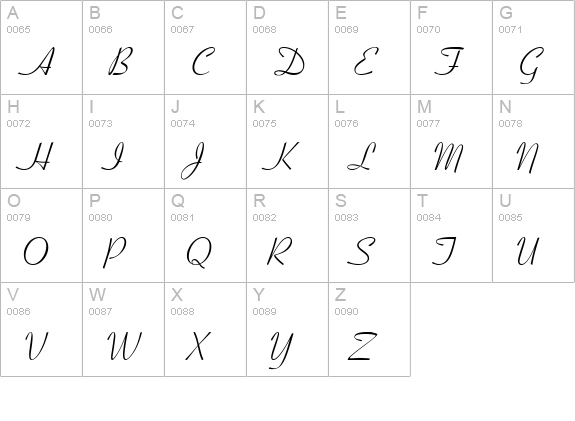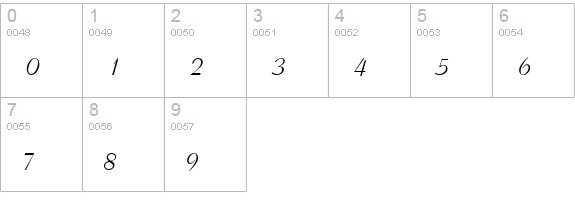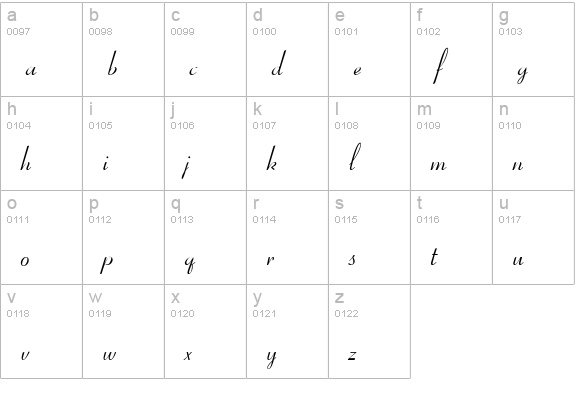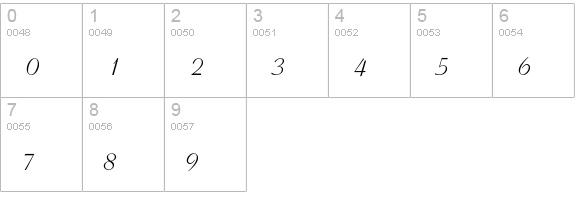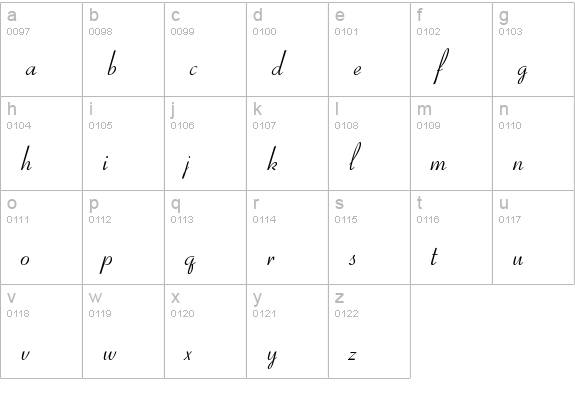
Bow Normal is the standard, neutral variant in the Bow typeface family \xE2\x80\x94 well suited to general body text, paragraphs, and standard typographic work.
Bow Normal font is a sleek and modern typeface that is perfect for a wide range of design projects. With its clean lines and elegant curves, this font exudes sophistication and style. Whether you're designing a logo, creating a flyer, or working on a website, Bow Normal font is sure to make your text stand out. The best part? Bow Normal font is completely free to download at FontsMarket.com. That's right, you can easily add this versatile font to your collection without breaking the bank. So why wait? Elevate your designs with Bow Normal font today!